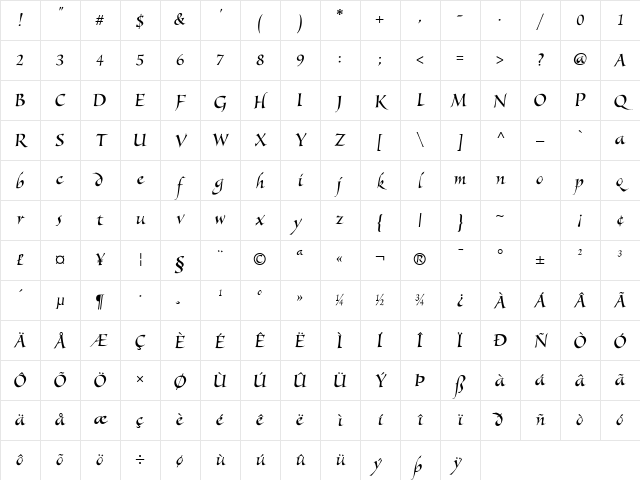
AIJuliana Regular Free Font
AIJuliana Regular
Foundry: Copr. by Philip Bouwsma
Design Context for AIJuliana
AIJuliana is a composed and adaptable typeface that performs quietly and consistently across a wide range of design contexts.